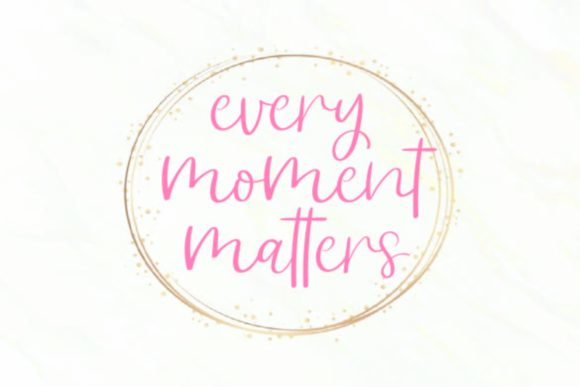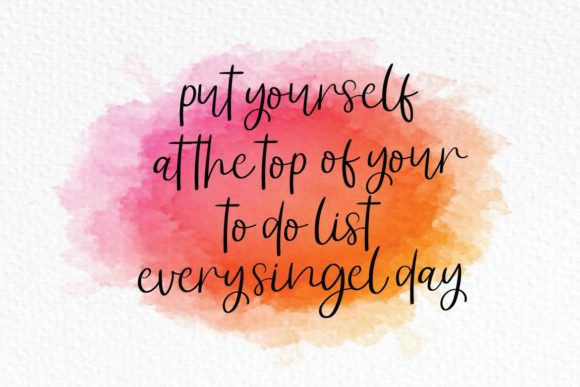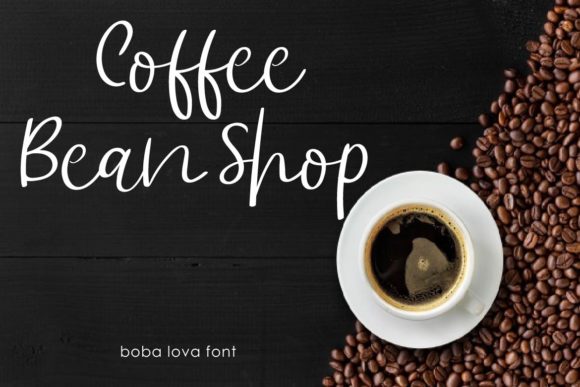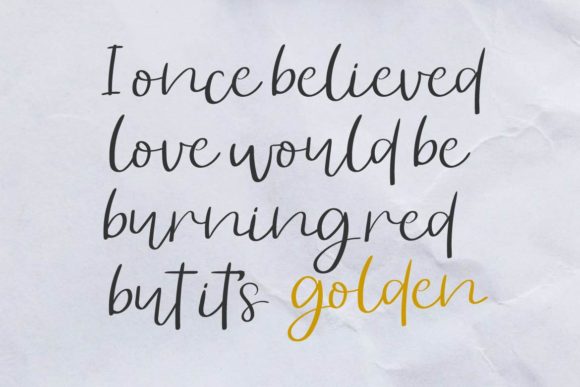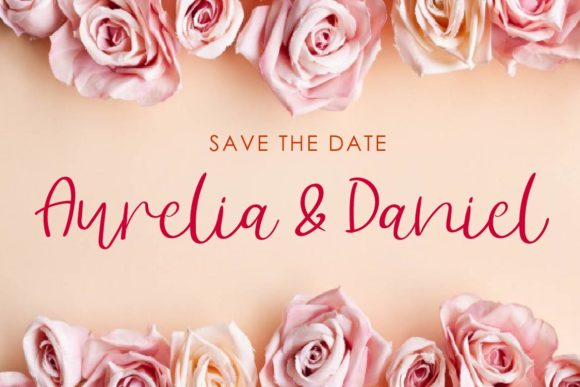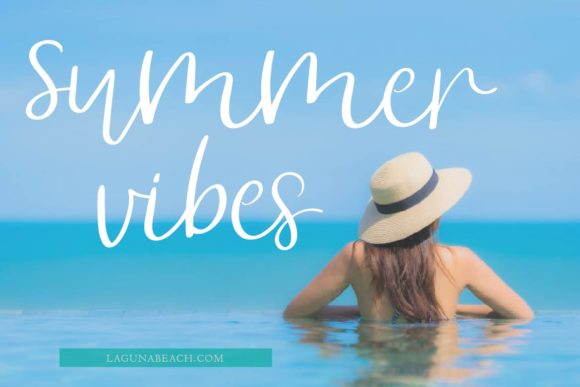
Boba Lova Font: The Perfect Handwritten Touch for Your Designs
Are you looking for a font that exudes charm and elegance? Look no further than the Boba Lova Font. This beautiful handwritten font is perfect for adding a personal touch to your designs, and its versatility makes it suitable for a wide range of projects.
What Makes Boba Lova Font So Special?
Boba Lova Font feels equally charming and elegant, making it an excellent choice for designs that require a sophisticated yet playful touch. Its unique lettering style is reminiscent of handwritten scripts, but with a modern twist that sets it apart from more traditional fonts.
Perfect for Wedding and Stationery Designs
One of the standout features of Boba Lova Font is its suitability for wedding invitations, thank you cards, and other stationery designs. The font’s elegant and refined appearance makes it perfect for formal events, and its handwritten touch adds a warm and personal feel to your designs.
Imagine creating beautiful wedding invitations that set the tone for a romantic and memorable day. With Boba Lova Font, you can add a touch of sophistication and whimsy to your designs, making them truly unforgettable.
Ideal for Quotes, Greeting Cards, and Logos
Boba Lova Font is not just limited to wedding and stationery designs. Its versatility makes it an excellent choice for a wide range of projects, including quotes, greeting cards, and logos.
For designers and crafters, Boba Lova Font offers endless possibilities. You can use it to create stunning quote designs that inspire and motivate, or add a personal touch to your greeting cards and stationery. The font’s elegant appearance also makes it perfect for logos and branding designs that require a sophisticated and professional look.
Business Cards and More
In addition to its many uses, Boba Lova Font is also an excellent choice for business cards and other marketing materials. The font’s unique lettering style and elegant appearance make it perfect for creating professional and memorable business cards that will help you stand out from the competition.
Whether you’re a designer, crafter, or small business owner, Boba Lova Font is an excellent addition to your design toolkit. Its versatility and elegance make it suitable for a wide range of projects, and its handwritten touch adds a warm and personal feel to your designs.
Key Features of Boba Lova Font
• Handwritten script font with a modern twist
• Elegant and refined appearance
• Perfect for wedding invitations, thank you cards, and stationery designs
• Ideal for quotes, greeting cards, logos, and business cards
• Versatile and suitable for a wide range of projects
In conclusion, Boba Lova Font is a beautiful and versatile handwritten font that is perfect for designers and crafters looking to add a personal touch to their designs. Its elegant and refined appearance makes it suitable for a wide range of projects, from wedding invitations and stationery designs to quotes, greeting cards, and logos.